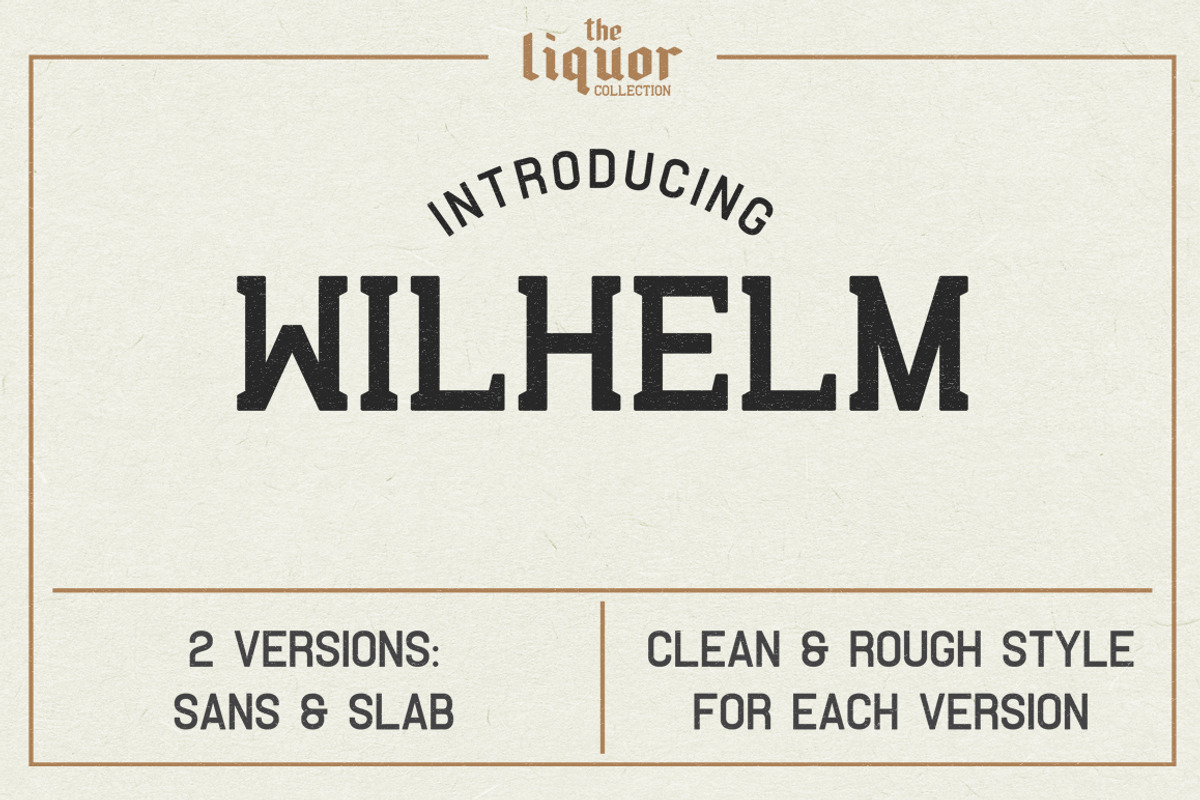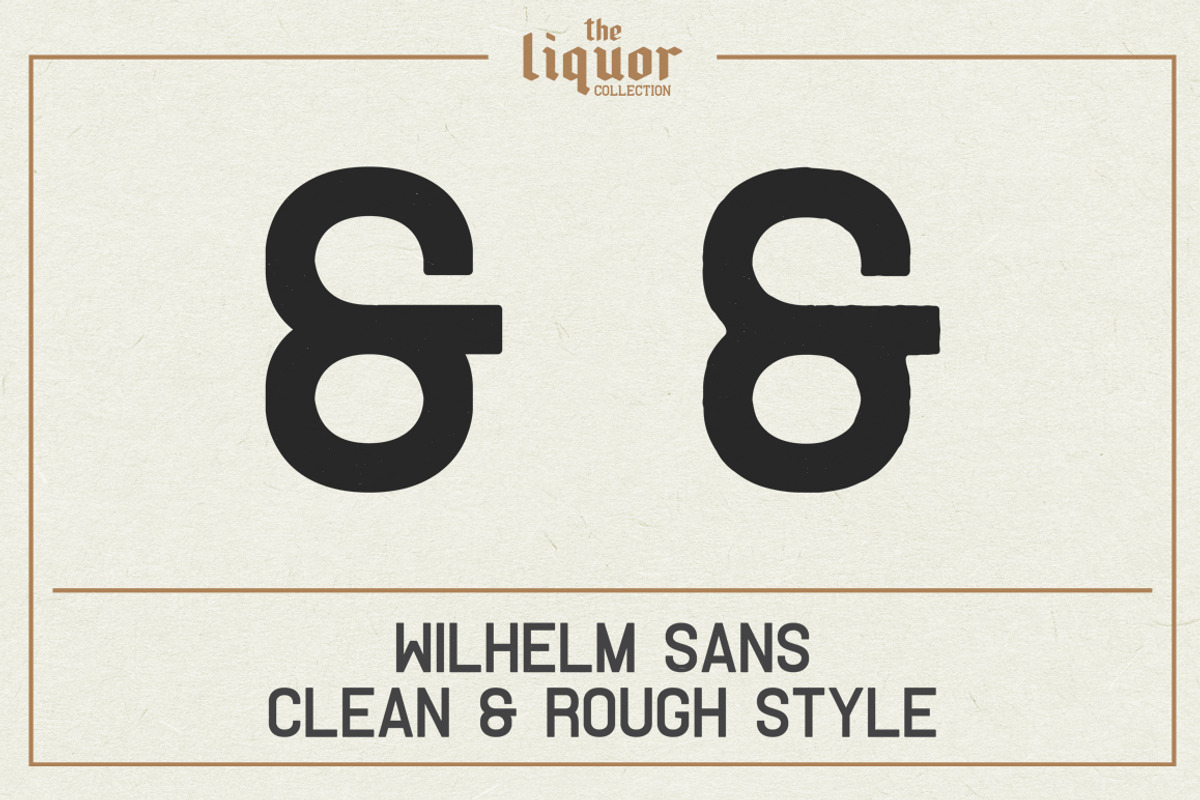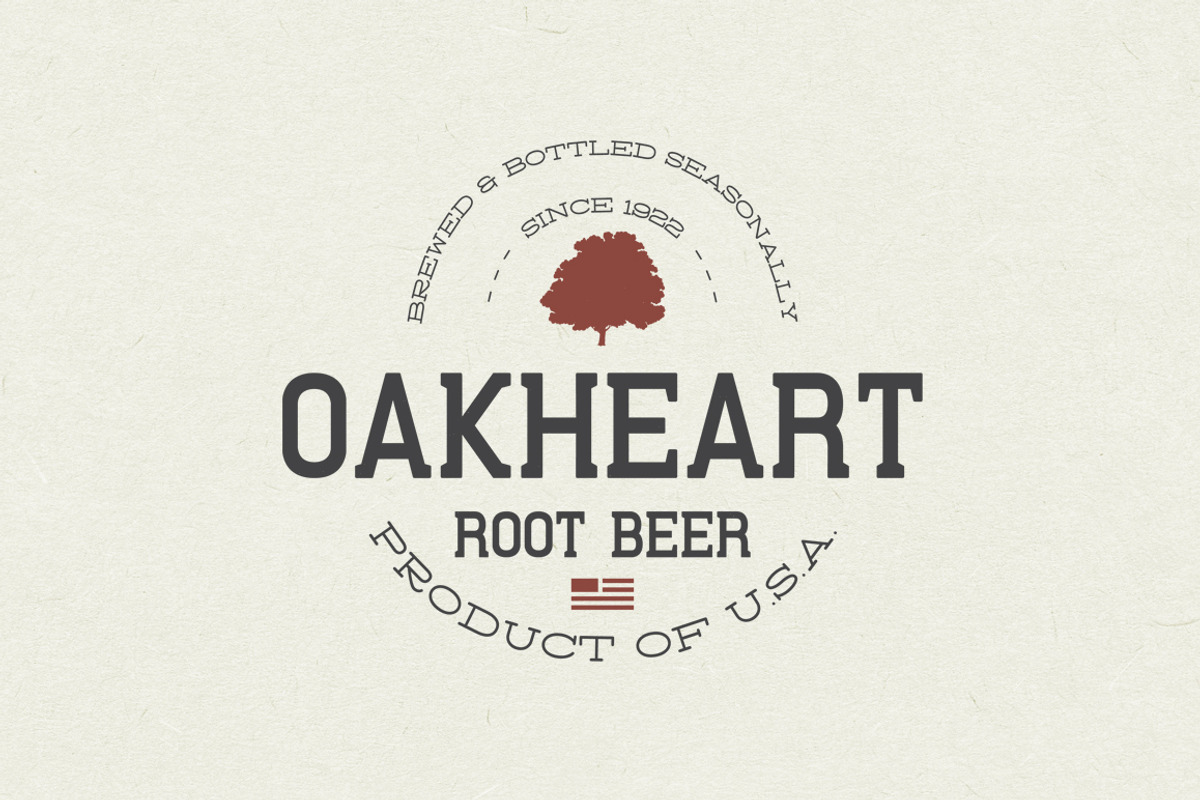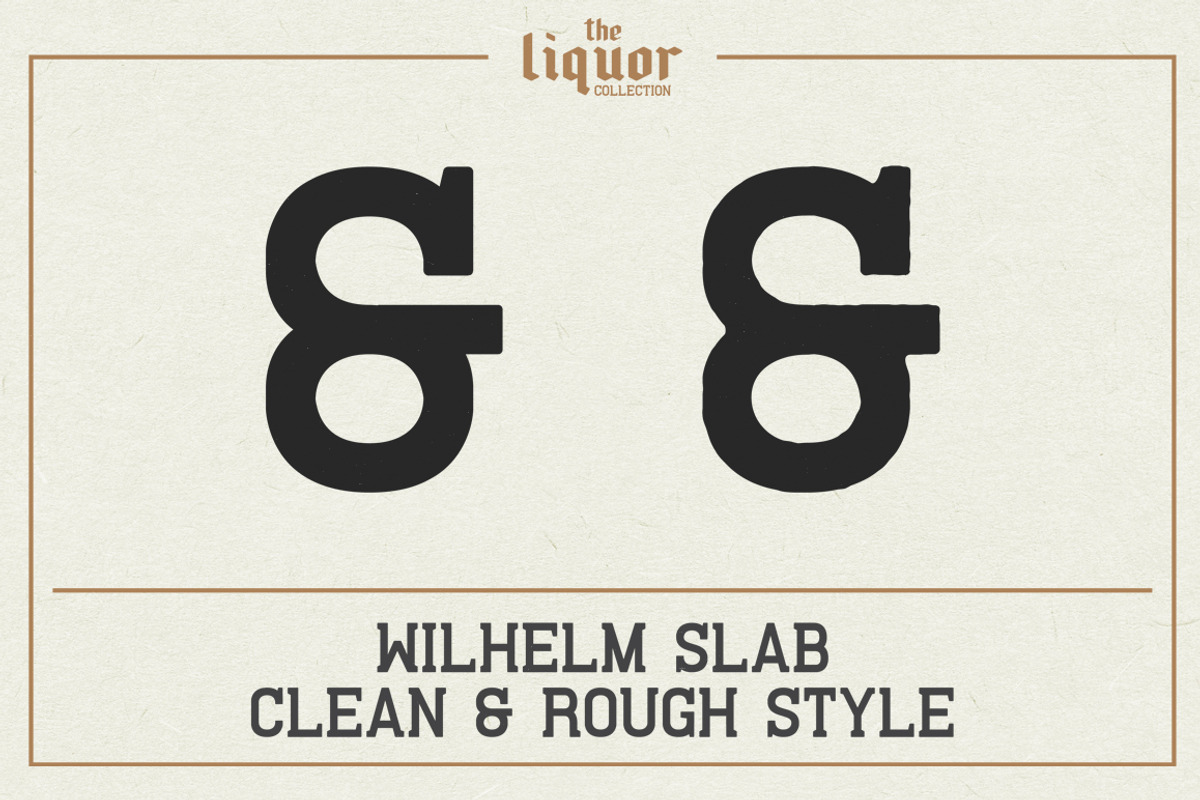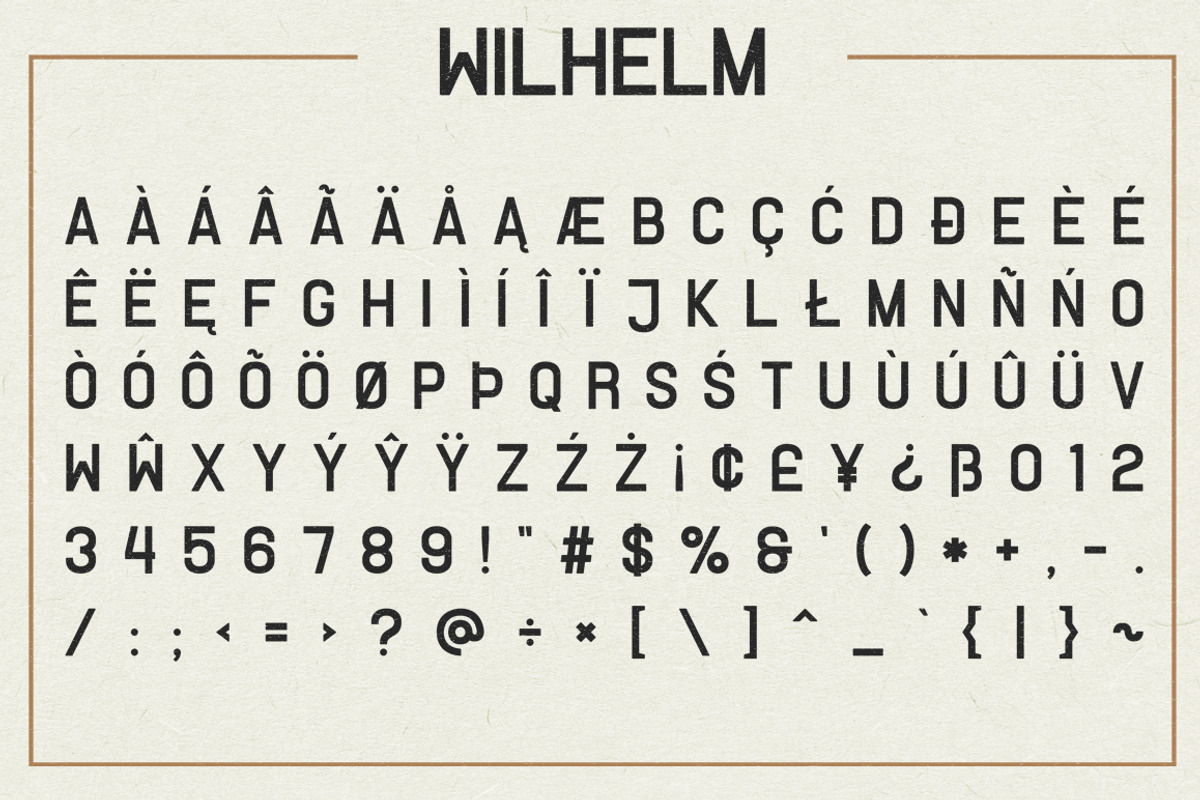
Wilhelm Font
Wilhelm Typeface is a part of "The Liquor Collection" -
Wilhelm is a clean vintage font inspired by retro liquor labels and posters. Two styles of Wilhelm (sans and slab serif) gives a lot of opportunities to design and combinate with other fonts. Wilhelm is great for logos, labels, packaging and posters design.
Wilhelm Sans (clean and rough style)
Wilhelm slab (clean and rough style)